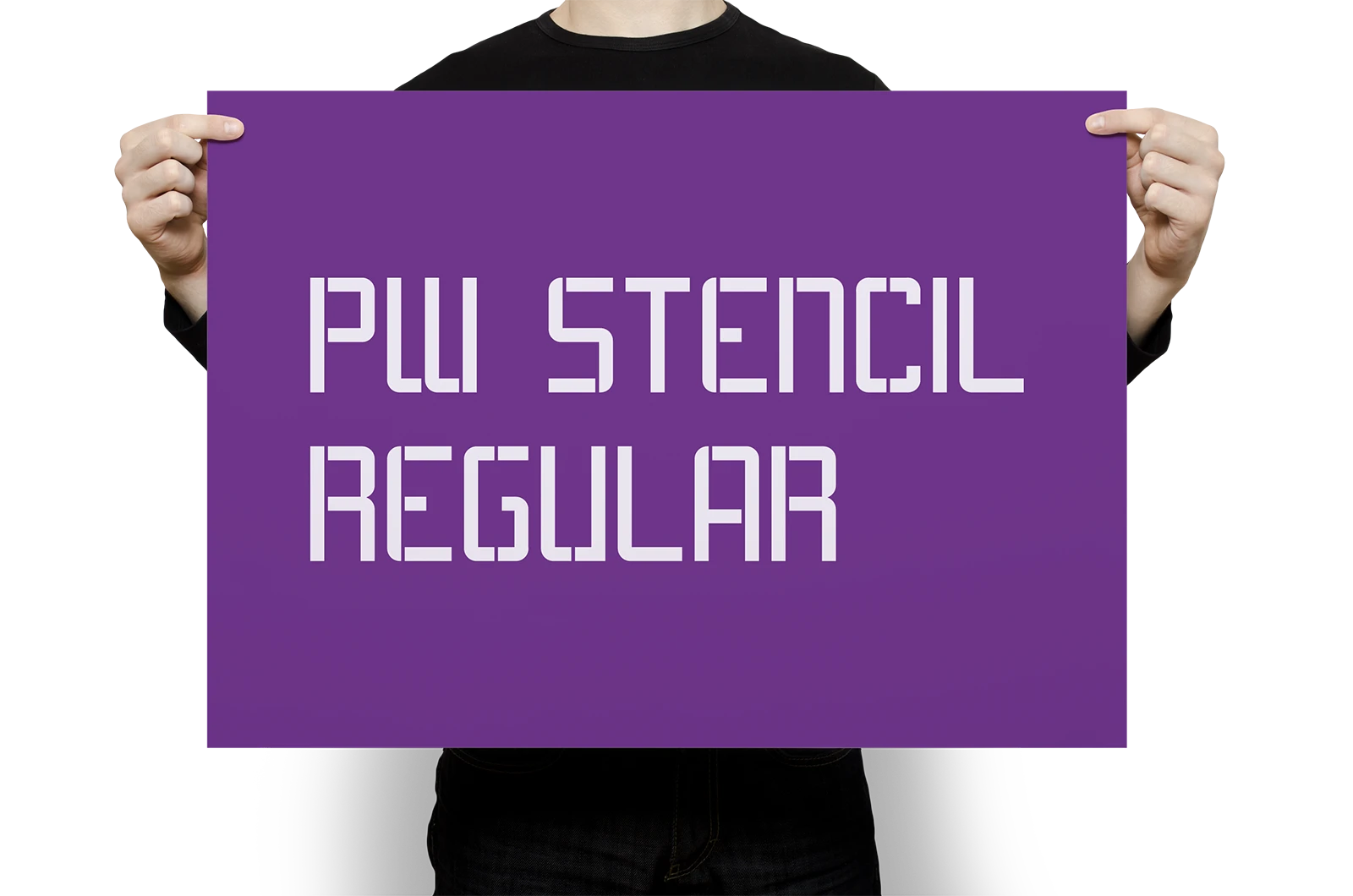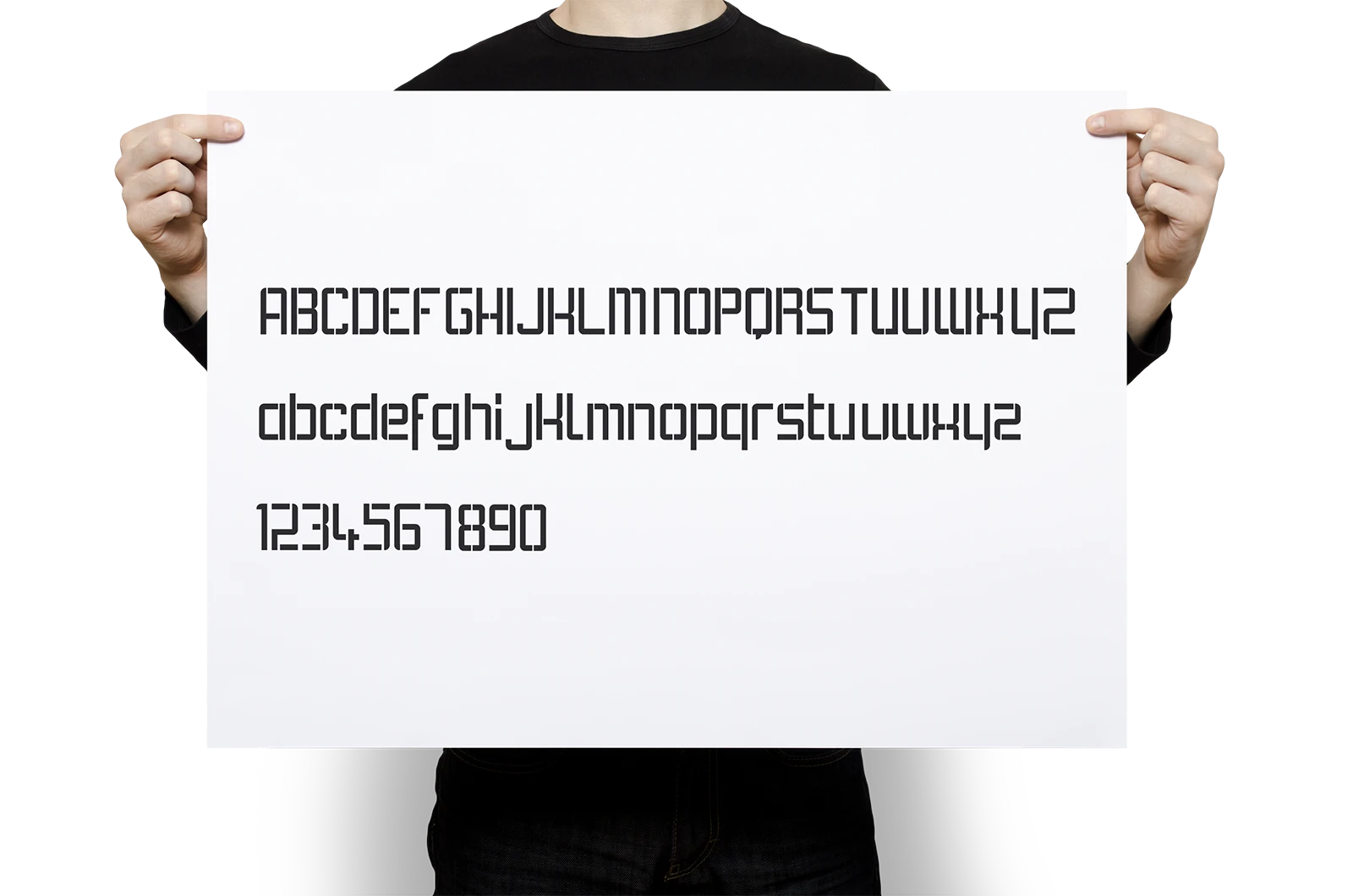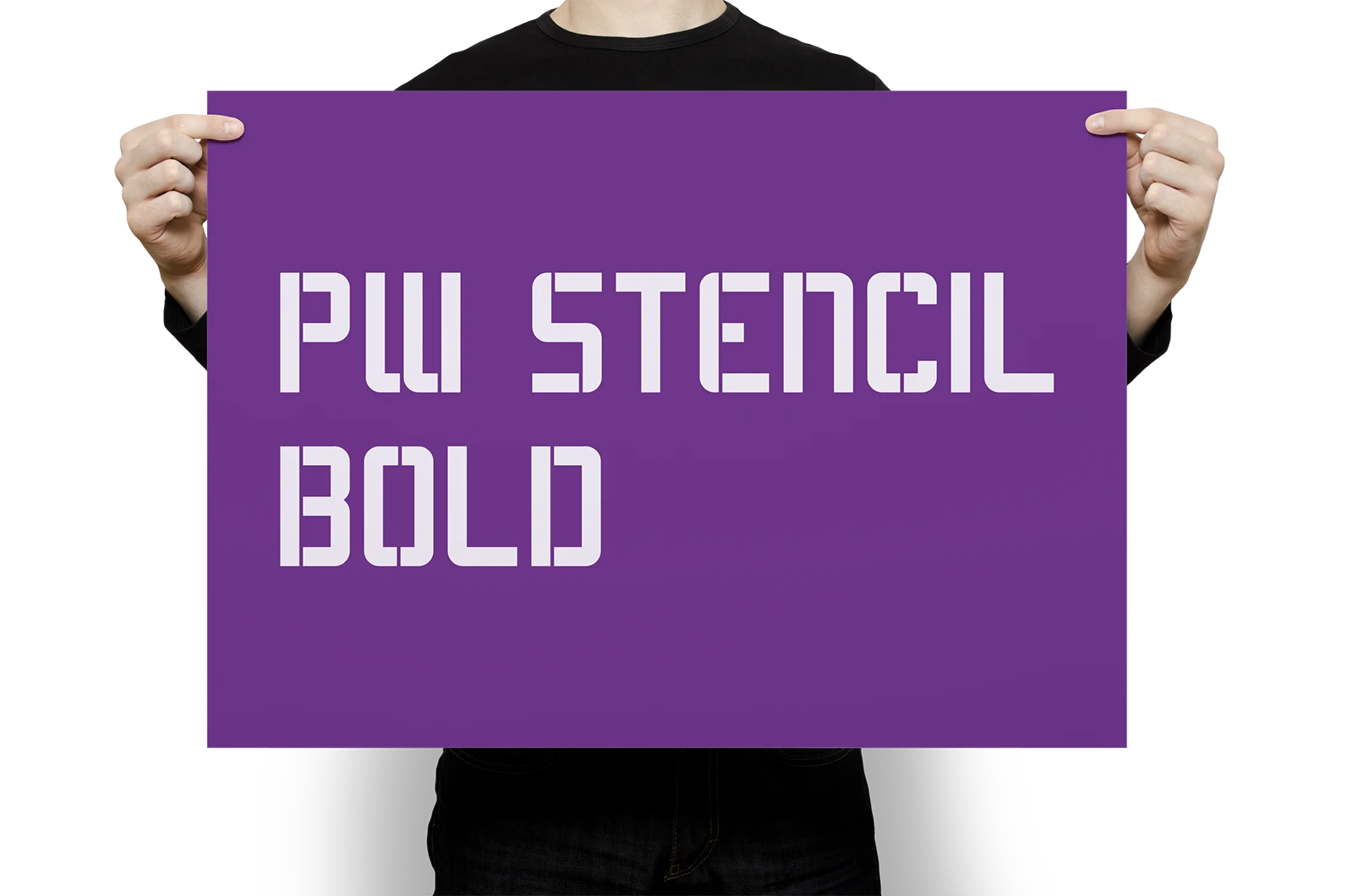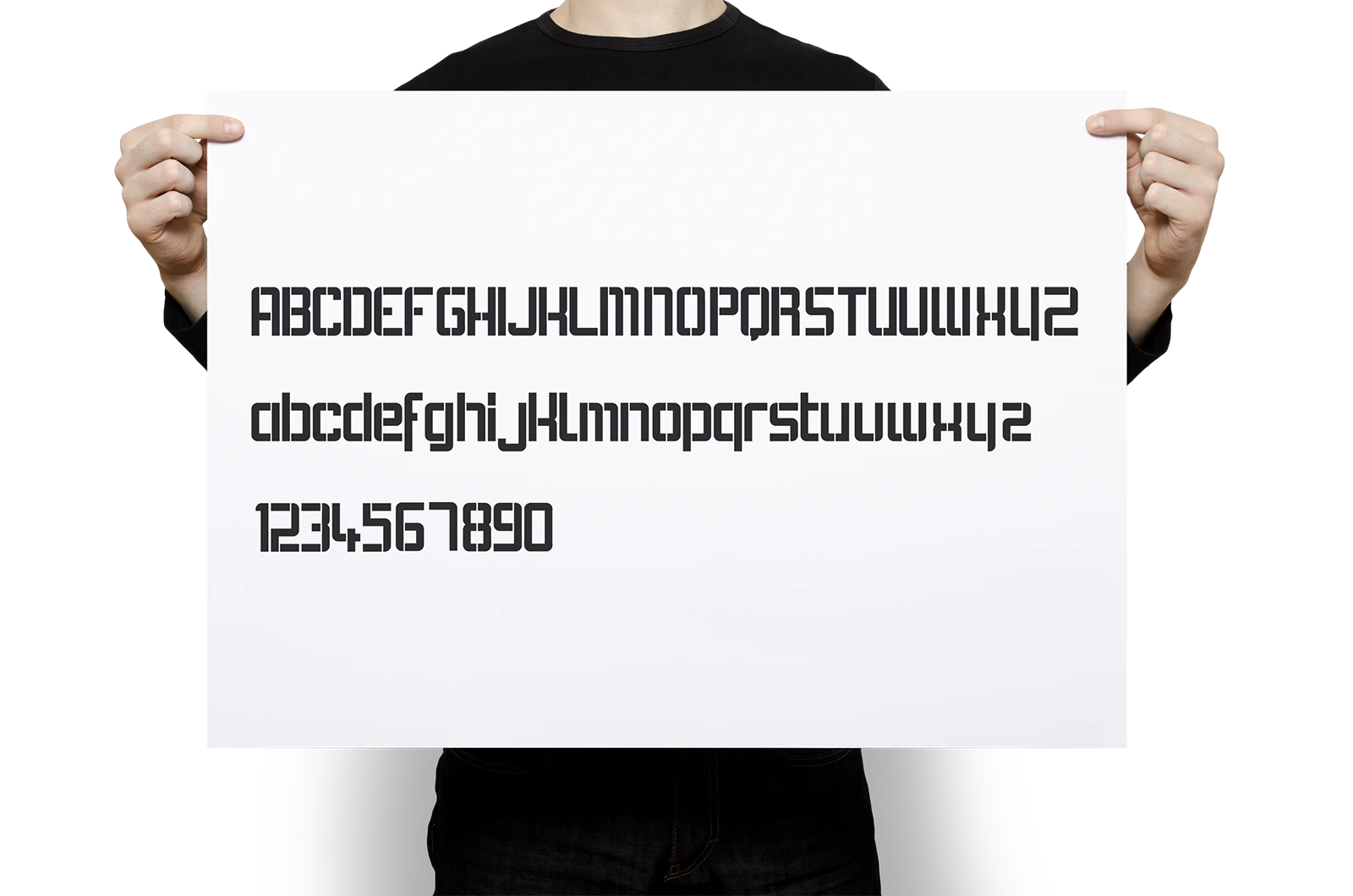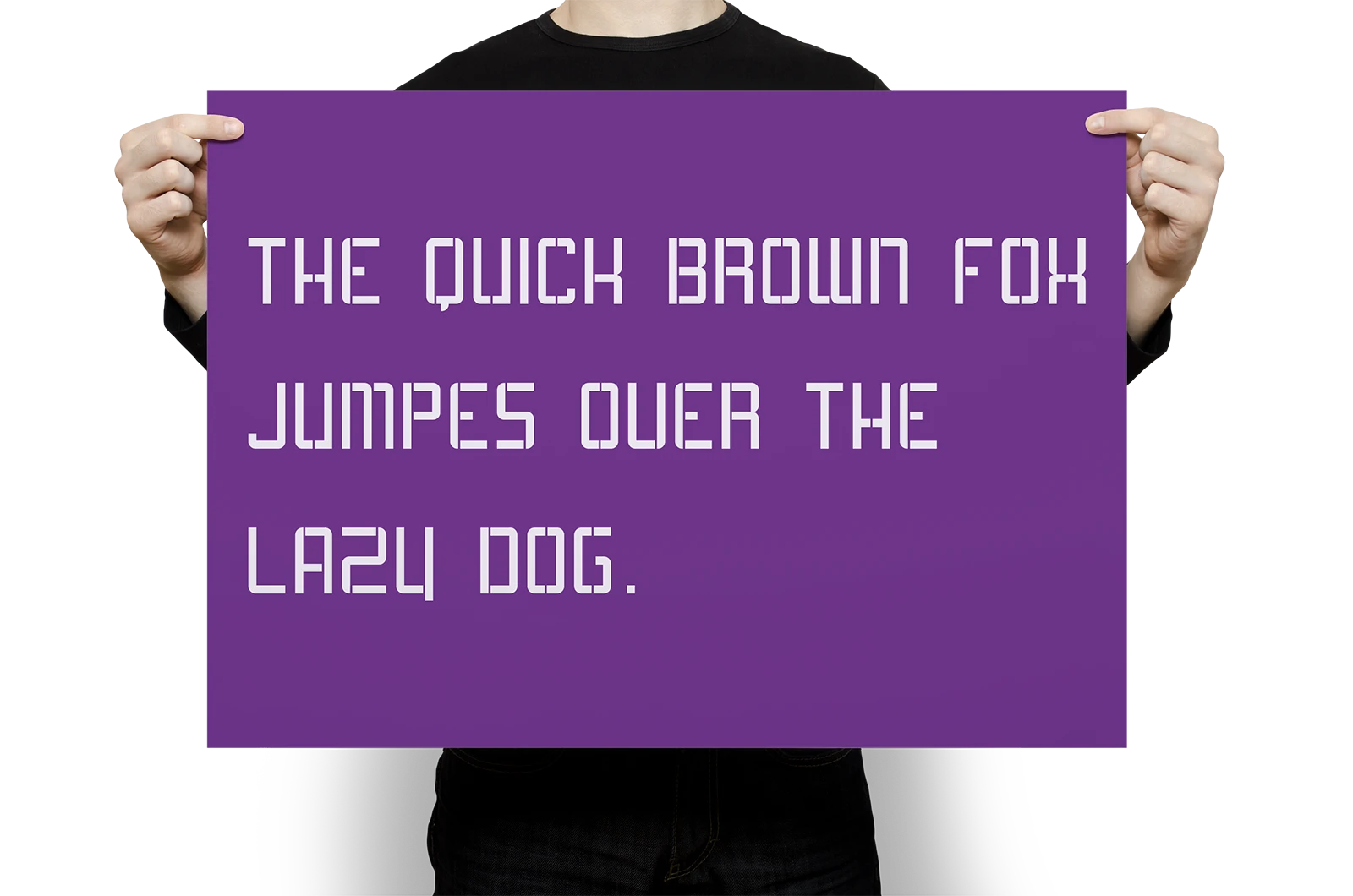
A project on the subject of typeface design in which a headline font in stencil style was created in various cuts. This font was developed as part of a course at the University of Applied Sciences Potsdam.
Ein Projekt zum Thema Schriftgestaltung bei dem eine Headline-Schrift in Schablonenoptik in verschiedenen Schnitten gestaltet wurde. Diese Schrift entstand im Rahmen eines Kurses an der Fachhochschule Potsdam.